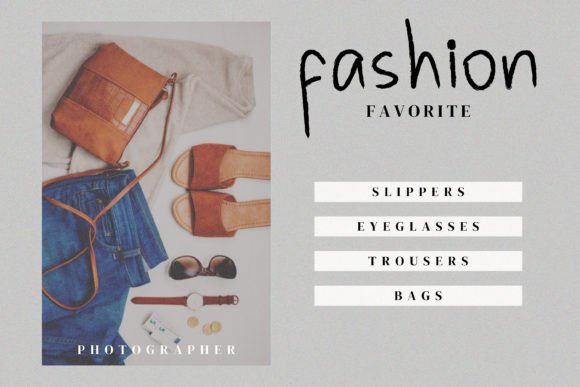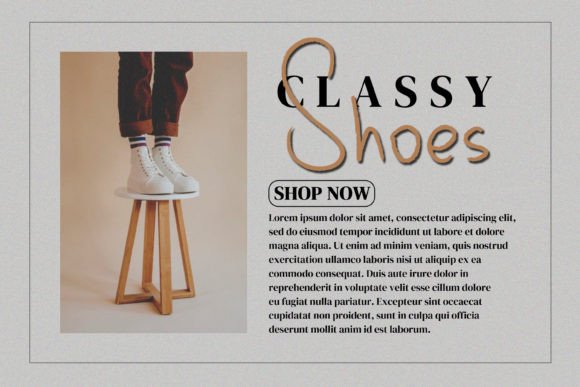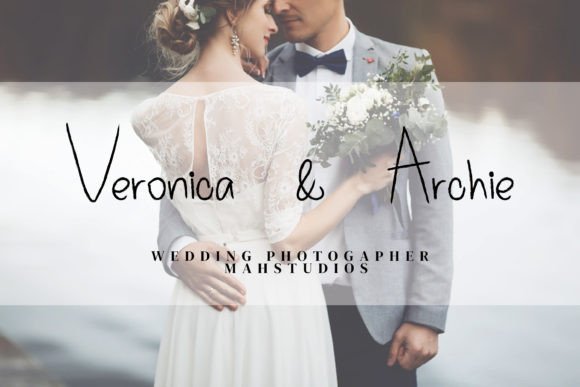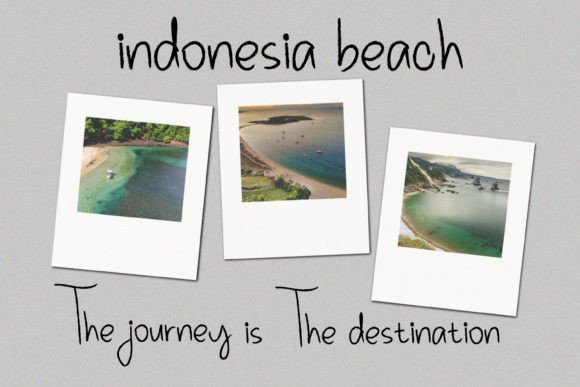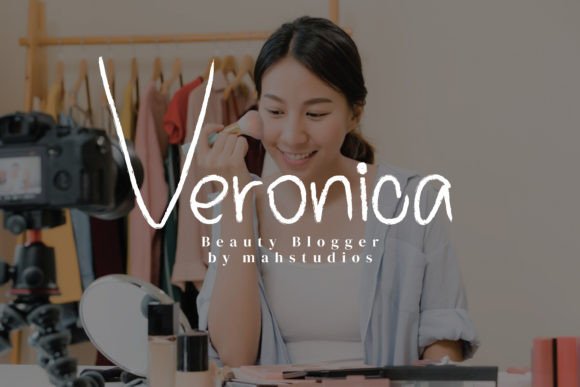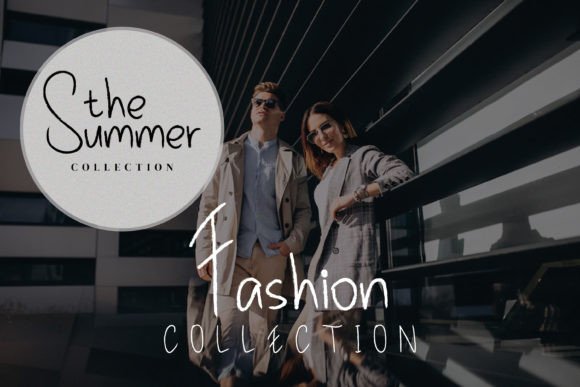
Introduction to Rushting Font
As a designer, have you ever stumbled upon a font that perfectly captures the essence of your creative vision? For me, that moment was when I discovered the Rushting Font. Its elegant script style and luxurious feel immediately sparked a wave of inspiration, begging to be used in my next design project.
| 📌 Product Name | Rushting Font |
| 👤 Author | mahstudios |
The Rushting Font is more than just a design resource – it’s a high-quality tool that elevates any creative project to new heights. With its transparent background and versatile design, it’s perfect for a wide range of applications, from logos and branding projects to homeware designs and product packaging.
Key Features of Rushting Font
- Unique, modern design with a transparent background, allowing for versatile use in various design contexts.
- Designed to be highly legible, with clear lines and a balanced composition, making it perfect for body text and titles.
Honest Review: Rushting Font
As a designer, I’m always on the lookout for high-quality design resources to enhance my creative projects. Recently, I came across the Rushting Font, and I must say, it’s been a game-changer.
Here’s what I love about the Rushting Font: ✨ It has a unique and modern design that’s perfect for modern branding and web design projects. ✨ The font is highly legible, even on small screens. ✨ The transparent background makes it easy to use on any design surface. ✨ And, the best part? It’s available for free download!
Here’s what I’d like to see improved: ⚠️ The font could benefit from a few more font weights and styles to offer more versatility. ⚠️ Some users might find the font a bit too bold, so it’s essential to use it judiciously. ⚠️ The free version has some limitations, such as limited character sets, but the paid version offers more features.
Overall, I’m impressed with the Rushting Font. It’s a solid addition to any designer’s toolkit, and I’d highly recommend it for any creative project. Just remember to use it responsibly, and don’t be afraid to experiment and push its limits!
- Unique and modern design
- Highly legible on small screens
- Some users might find it too bold
Common Use Cases for Rushting Font
Rushting Font is perfect for a variety of creative projects, including social media graphics, presentations, and documents. Its high quality and transparent background make it ideal for use in a range of design applications.